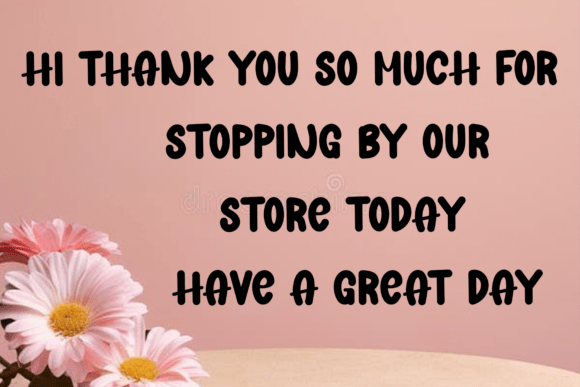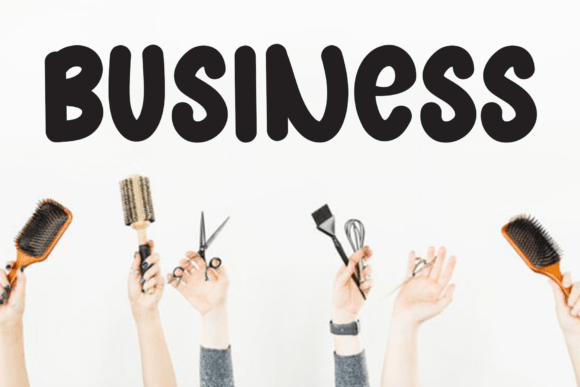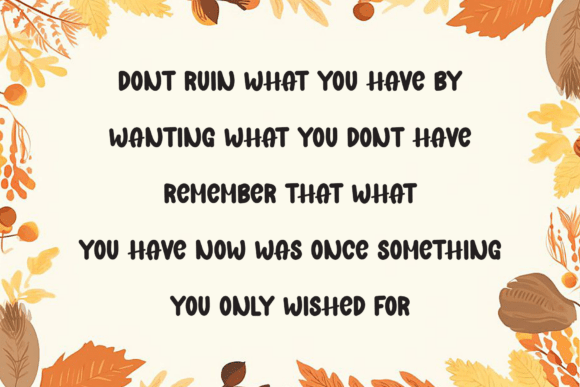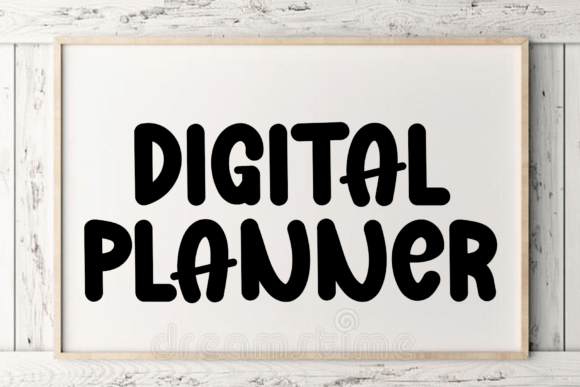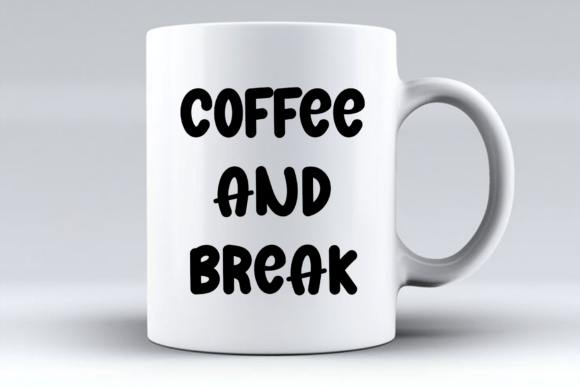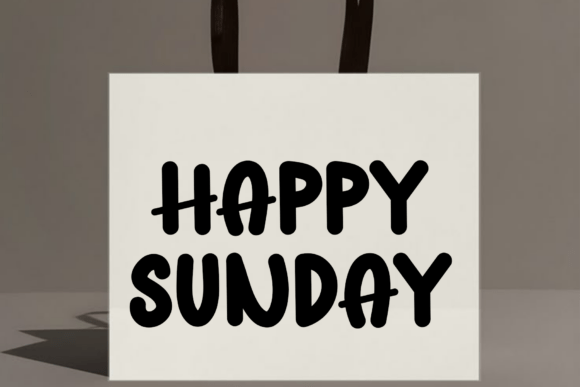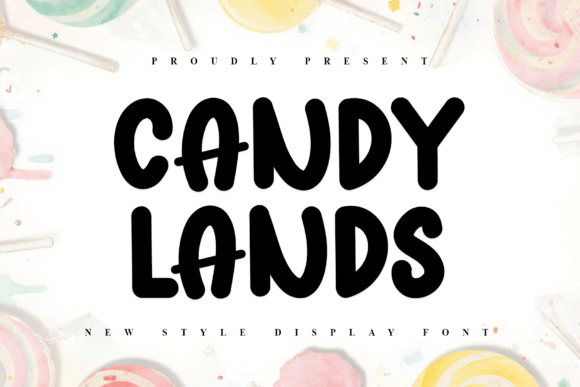
The Sweet Spot: Discovering Candy Lands Font
A Font that Feels like a Warm Hug
Candy Lands is a casual and creative font that exudes warmth and friendliness. Its round, playful strokes create a relaxed and approachable feel, perfect for personal projects, invitations, and social media graphics. The font’s charming, hand-drawn aesthetic adds a fun and unique touch to any design. Whether you’re a designer, crafter, or creative hobbyist, Candy Lands is sure to become a favorite in your font collection.
- ✨ The playful, hand-drawn aesthetic is perfect for creating fun and unique designs.
- 💬 The font’s casual and creative vibe makes it perfect for personal projects and social media graphics.
- 🎉 The font’s charming and friendly feel makes it perfect for invitations and party designs.
While Candy Lands is an amazing font, there are a few things to keep in mind. 🤔 For example, the font may not be suitable for very formal or professional designs, as it has a distinctly playful feel. ⚠️ Additionally, some users may find that the font’s hand-drawn aesthetic can make it difficult to read at very small sizes.
The Story Behind Candy Lands
Candy Lands was designed by a team of creatives who wanted to create a font that would capture the playful, carefree spirit of childhood. Inspired by vintage candy wrappers and retro advertisements, the font’s designers aimed to create a font that would be fun, friendly, and approachable. The result is a font that’s perfect for creating designs that are sweet, playful, and full of personality.
Q: What is Candy Lands font?
A: Candy Lands is a casual and creative font that exudes warmth and friendliness. Its round, playful strokes create a relaxed and approachable feel, perfect for personal projects, invitations, and social media graphics.